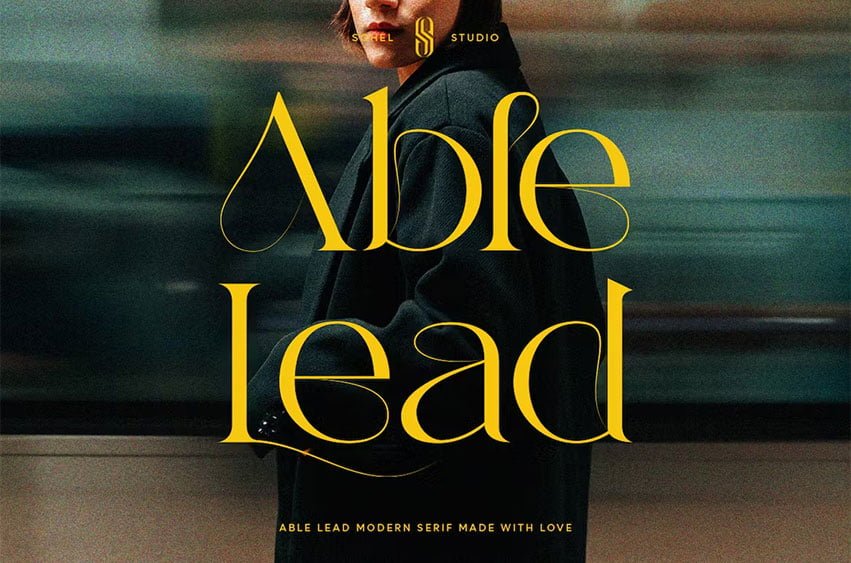
Able Lead Font is a Modern elegant serif typeface with Unique alternative, multilingual support with perfect kerning. This typeface is perfect for an elegant & luxury logo , classy editorial design, women’s magazine, fashion brand , cosmetic brand, fashion promotion , modern advertising design, invitation card, art quote, home decoration , book/cover titles, special events, Tote bag, T-shirt, Advertising and much more.
Able Lead Features:
- Uppercase And Lowercase
- Alternates
- Accented characters